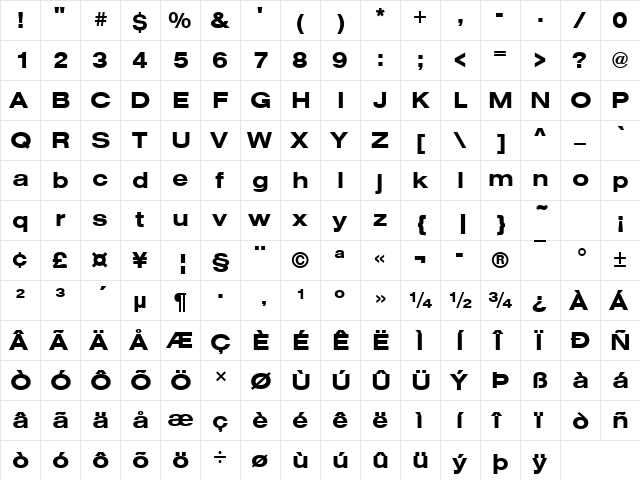
Nimbus Sans Becker TExt Bold
Design Context for Nimbus Sans Becker TExt Typeface
Nimbus Sans Becker TExt takes a measured approach to typography — its balanced proportions and neutral character make it a reliable workhorse for both digital and print work. Its bold stroke weight gives it real presence on the page.